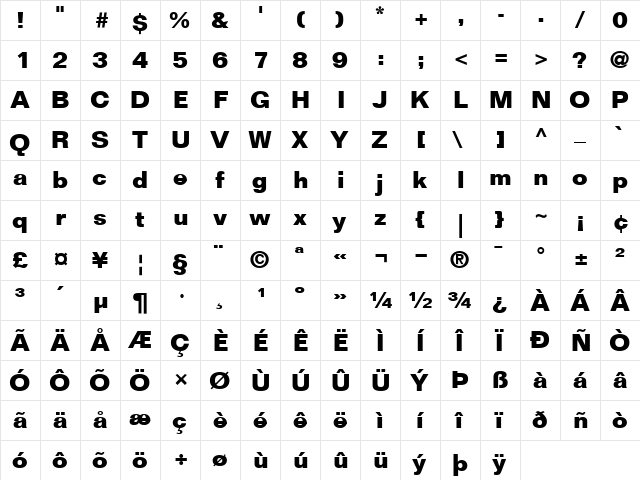
Folio Bold
Design Context for Folio Typeface
Folio is a composed and adaptable typeface that performs quietly and consistently across a wide range of design contexts. The heavy weight commands attention and anchors typographic hierarchies.
Pro Tip: Use Folio in both headline and body roles to test its range before committing to a single application.